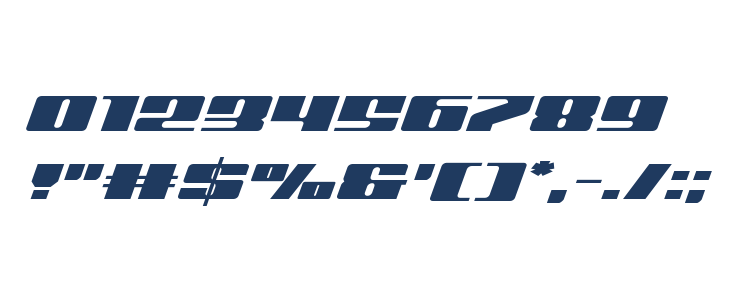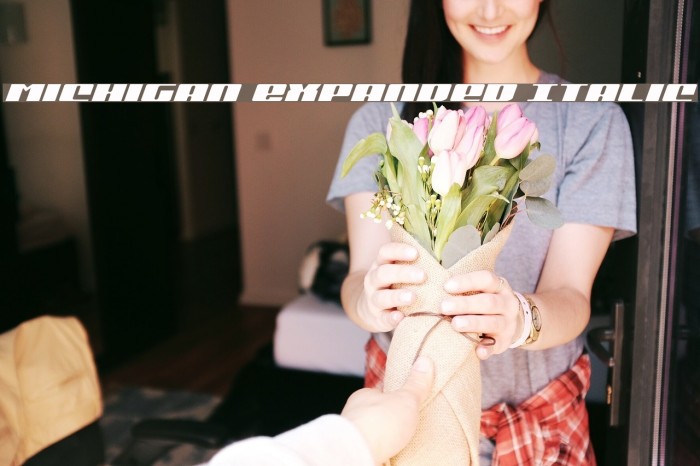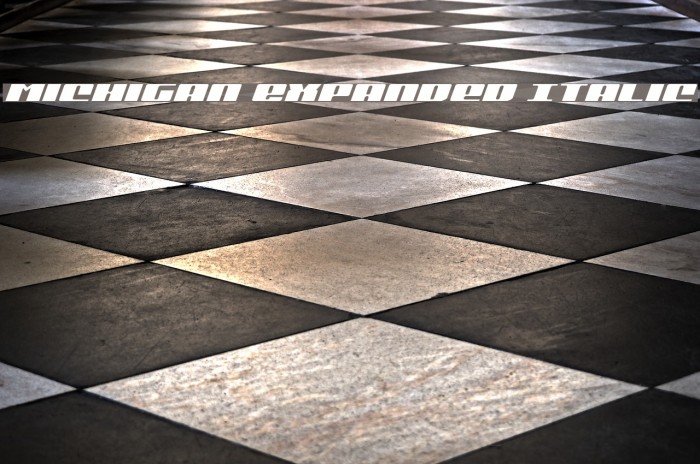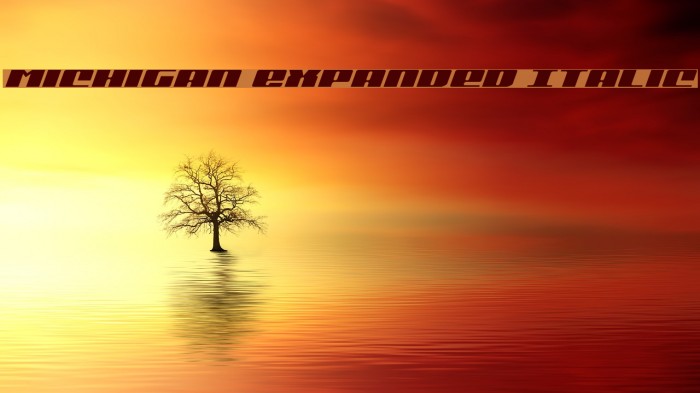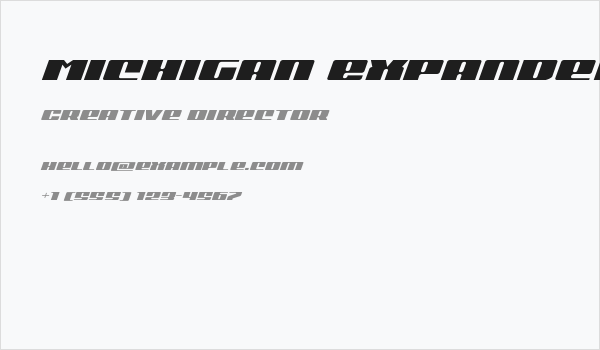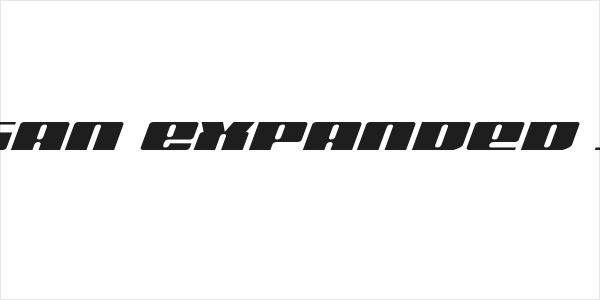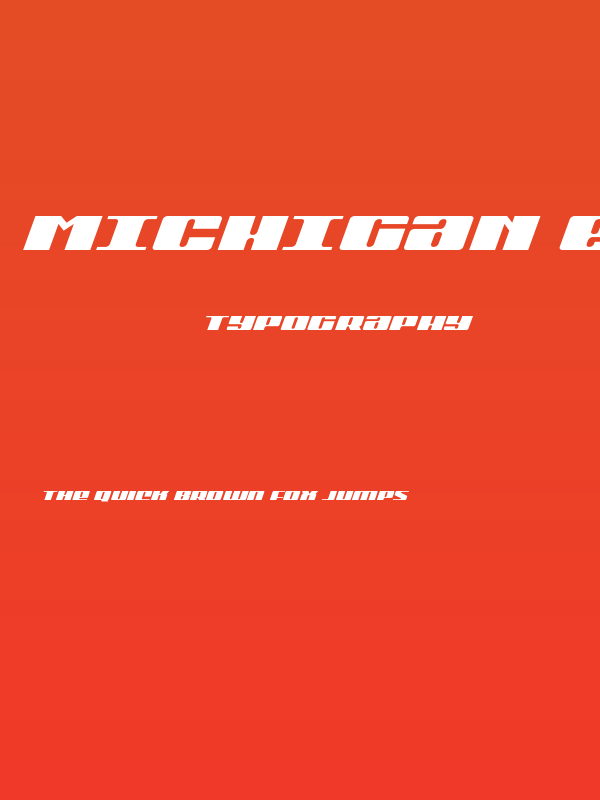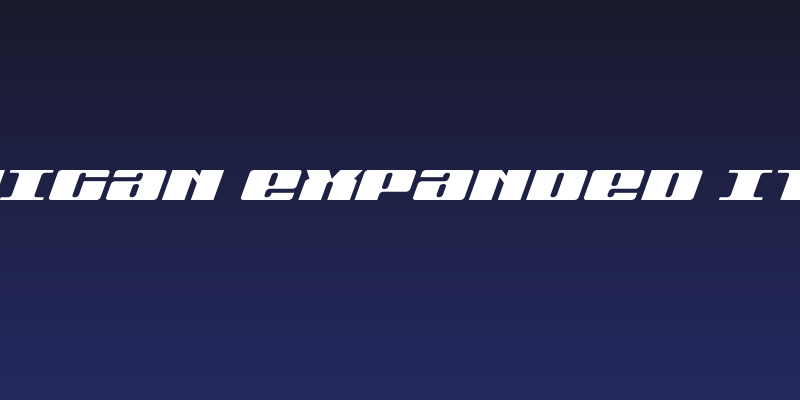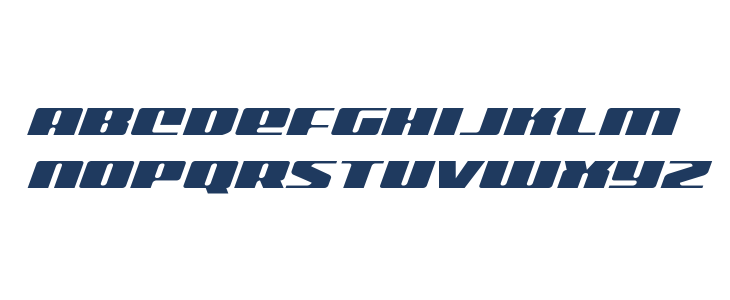
Michigan Expanded Italic Font
Michigan Expanded Italic Description
This font features a bold, italicized style with an expanded width, giving it a strong and dynamic appearance. The characters are designed with a futuristic and sporty aesthetic, characterized by sharp angles and a sense of motion. The uppercase and lowercase letters maintain a consistent style, with the lowercase being slightly smaller in height but retaining the same boldness. Numbers and special characters follow the same design principles, ensuring uniformity across all glyphs. The font's expanded width and italic slant make it particularly eye-catching, suitable for projects that require a modern and energetic look.
| Proposed Projects | Ideal for sports branding, automotive designs, dynamic posters, and modern advertising campaigns. |